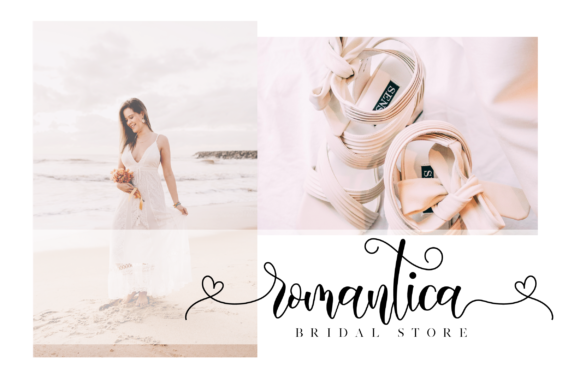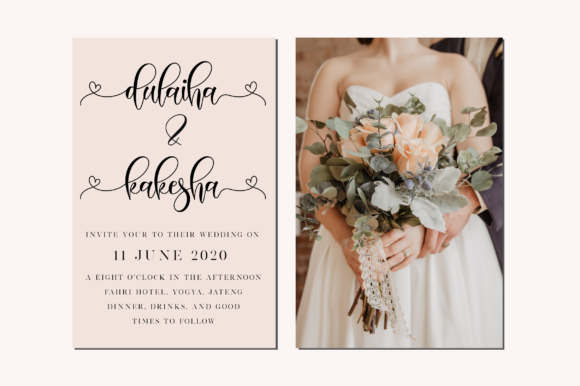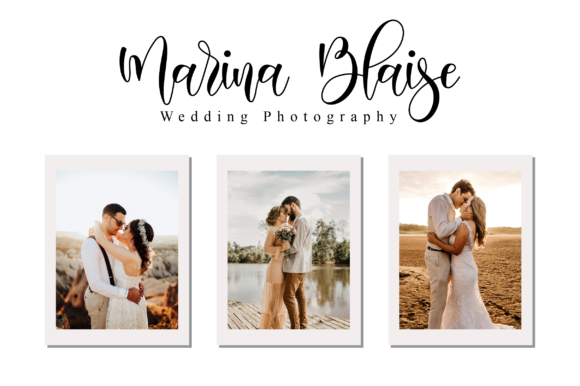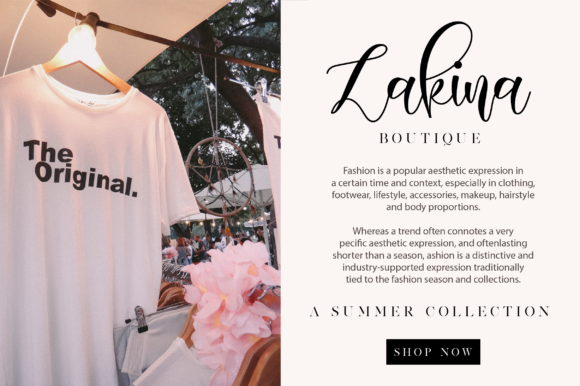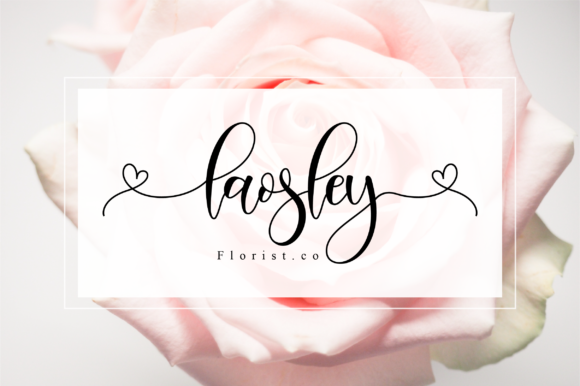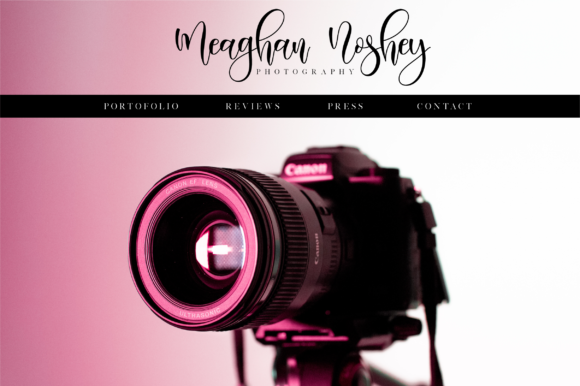
Haisley Font: Elevate Your Designs with Elegance and Sophistication
In the world of typography, few fonts manage to capture the essence of elegance and modernity as effectively as the Haisley Font. This incredibly beautiful script font has been making waves among designers and crafters alike, and for good reason. With its classy, elegant, and modern look, Haisley offers a versatile solution for a wide range of design needs, from logos and branding to invitations, stationery, wedding designs, social media posts, and beyond.
The Beauty of Haisley Font
Haisley Font stands out in the crowded world of digital typography due to its unique blend of classic script elements and modern sensibilities. Its fluid strokes and graceful letterforms evoke a sense of sophistication and refinement, making it an ideal choice for projects where making a lasting impression is paramount. Whether you’re designing a logo for a luxury brand, crafting invitations for a high-end wedding, or simply looking to elevate your social media aesthetic, Haisley provides the perfect combination of style and versatility.
One of the key advantages of the Haisley Font is its incredible versatility. This font isn’t just limited to one or two specific uses; rather, it can be seamlessly integrated into a myriad of design projects. Here are just a few ways you can utilize Haisley Font:
- Logos and Branding: Create a memorable brand identity with Haisley’s elegant and modern appeal.
- Invitations and Stationery: Add a touch of class to your wedding invitations, greeting cards, and other stationery.
- Wedding Designs: From wedding logos to ceremony programs, Haisley brings a sophisticated flair to any wedding-related design.
- Social Media Posts: Stand out on social media platforms with eye-catching posts and stories that showcase your brand’s personality.
- And More: The possibilities are endless, from packaging designs to website headers, Haisley can elevate any design project.
Why Choose Haisley Font?
With so many fonts available to designers today, what sets Haisley apart? Here are a few reasons why Haisley Font should be at the top of your font wishlist:
- Unique Aesthetic: Haisley offers a distinctive look that can help your designs stand out in a crowded marketplace.
- Ease of Use: Designed with usability in mind, Haisley can be easily integrated into your projects, regardless of your design experience.
- High Versatility: Its adaptability makes it suitable for a wide range of design applications.
- Modern and Timeless: Haisley’s design strikes a perfect balance between modern trends and timeless elegance, ensuring your designs remain relevant for years to come.
How to Get the Most Out of Haisley Font
To truly leverage the potential of Haisley Font, consider the following tips:
- Pair it Wisely: Combine Haisley with complementary fonts to create visual interest and hierarchy in your designs.
- Experiment with Colors: While Haisley looks stunning in classic black and white, don’t be afraid to experiment with colors that match your brand’s palette.
- Play with Sizes: Utilize varying font sizes to add emphasis and create a dynamic visual flow in your designs.
Haisley Font is more than just a script font; it’s a design powerhouse that can elevate your projects to new heights of elegance and sophistication. Whether you’re a professional designer or a crafting enthusiast, Haisley offers the perfect blend of style, versatility, and modern appeal. By incorporating Haisley into your design toolkit, you’ll be well-equipped to create stunning, memorable designs that leave a lasting impression.